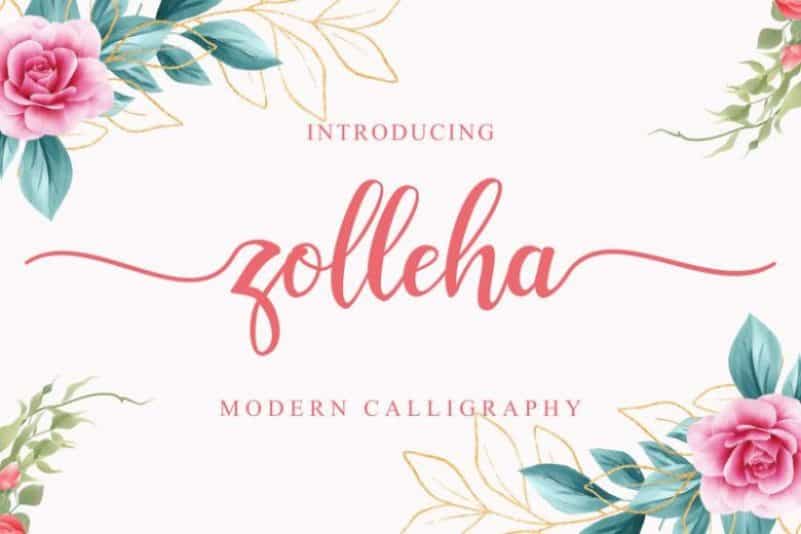
Discover Zolleha Modern Calligraphy Font, part of the Calligraphy collection—a versatile and unique font perfect for adding a personal touch to your projects. Download it for free and enjoy crafting designs with style, from invitations to social media posts. This font is available exclusively for personal use, giving you the freedom to create without limits. Unlock your creativity with Zolleha Modern Calligraphy Font today!
Zolleha Calligraphy Font is just as friendly and sophisticated. This breathtaking script font is a fashionable tribute to the traditional calligraphy. The varying baseline, smooth lines, beautiful glyphs and fantastic alternates are its main features.